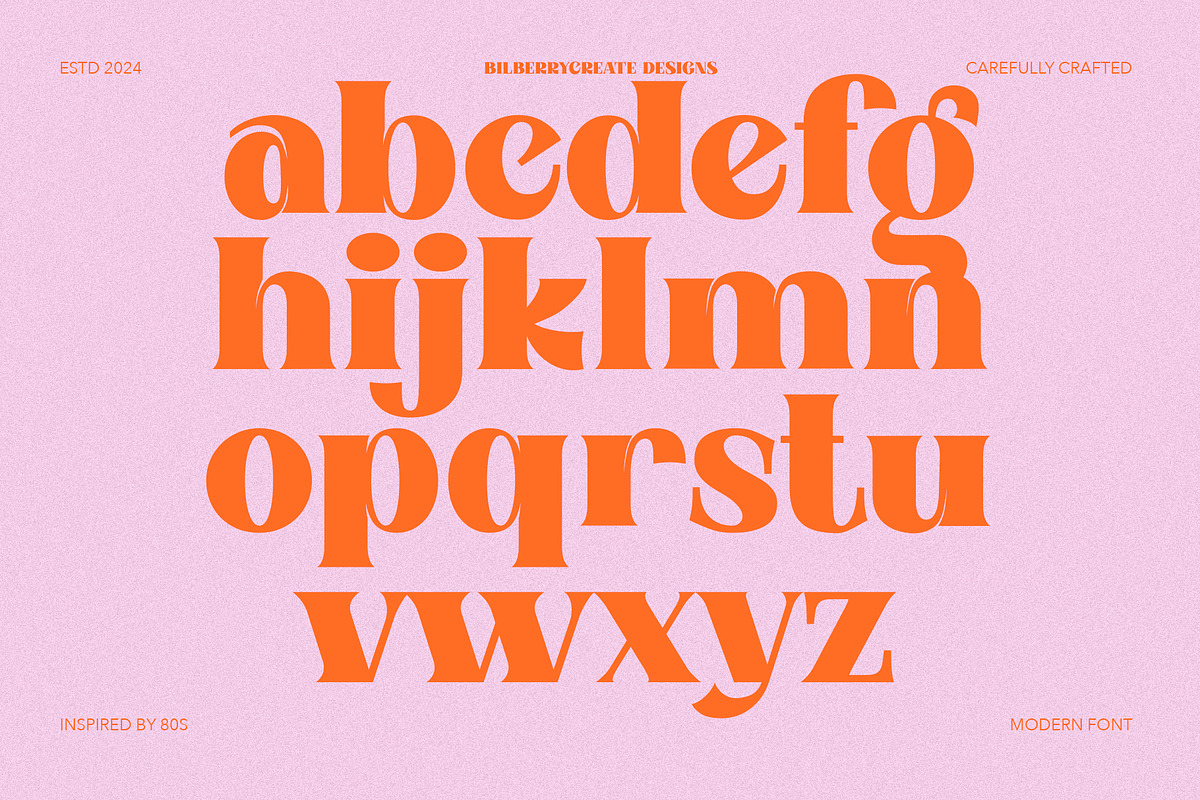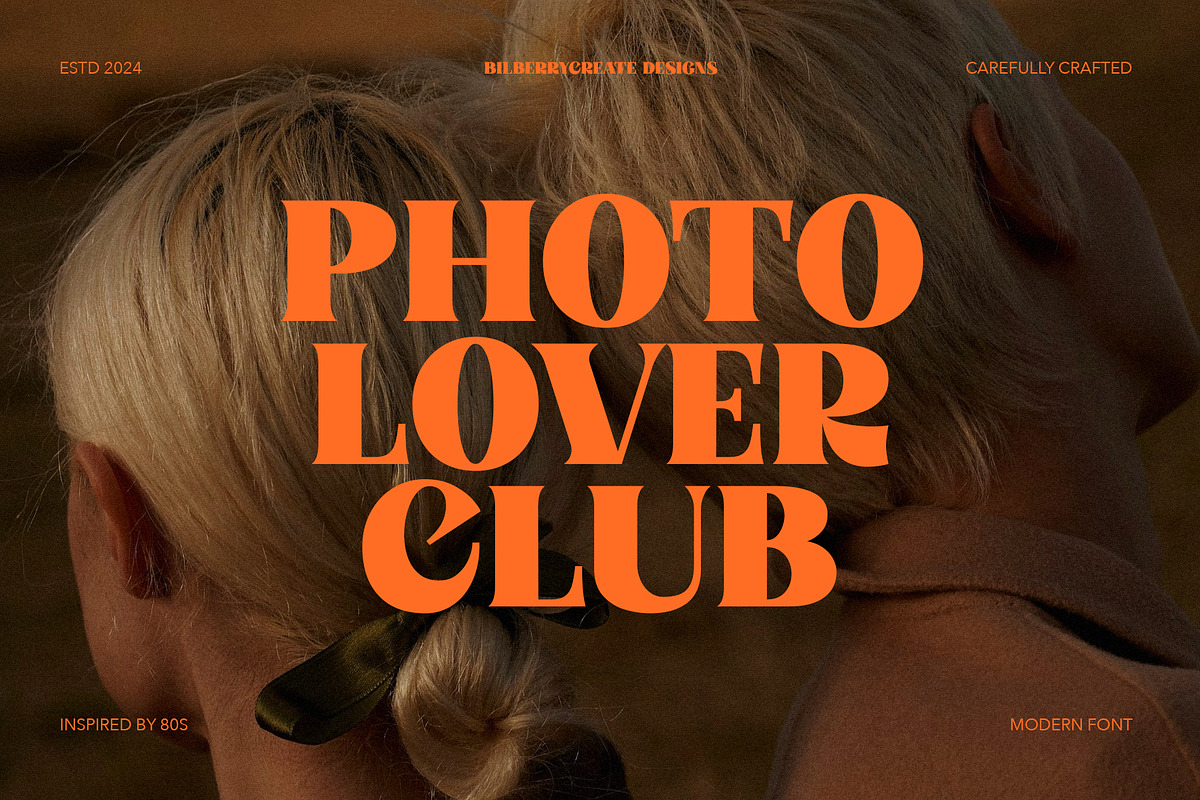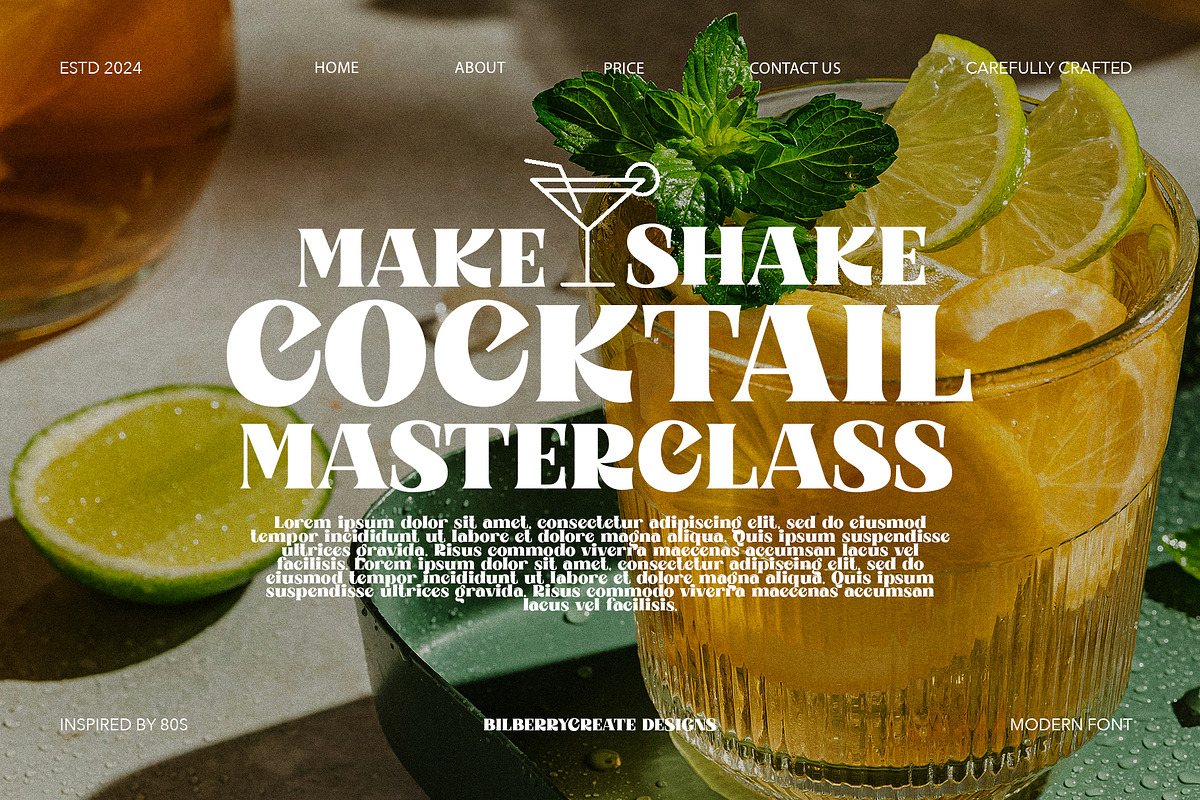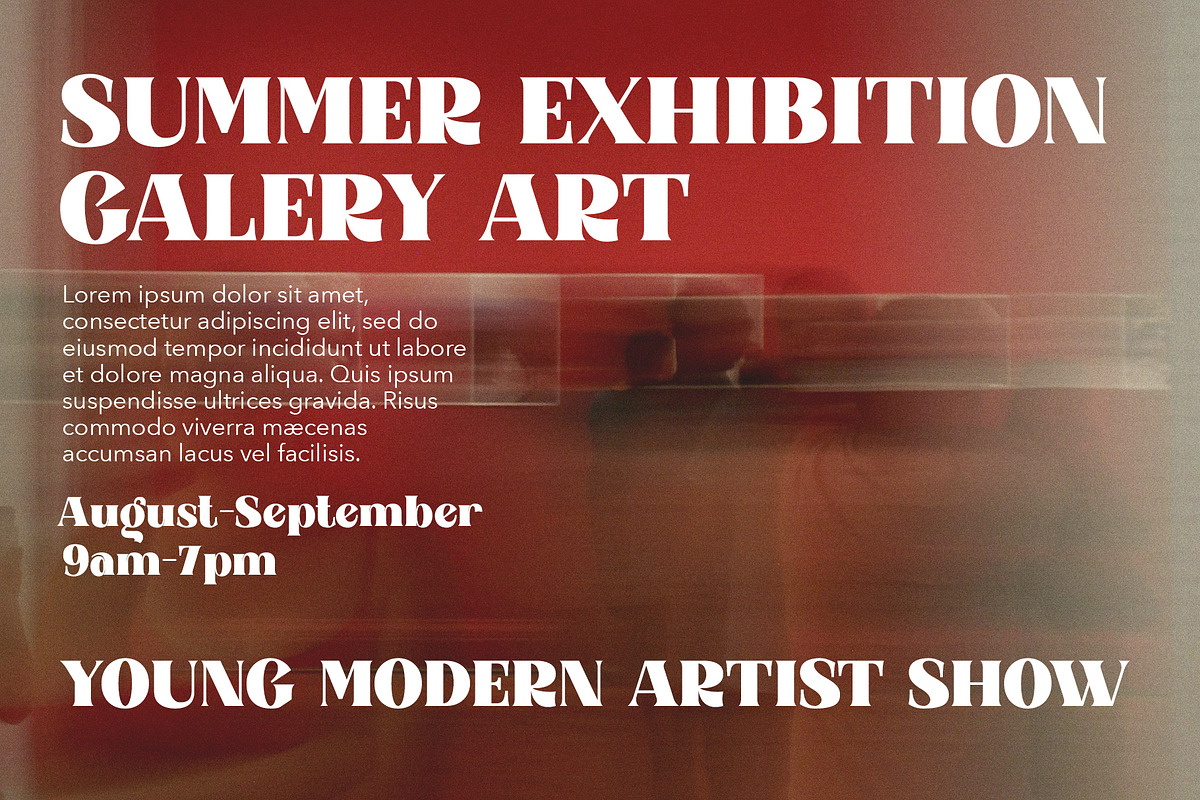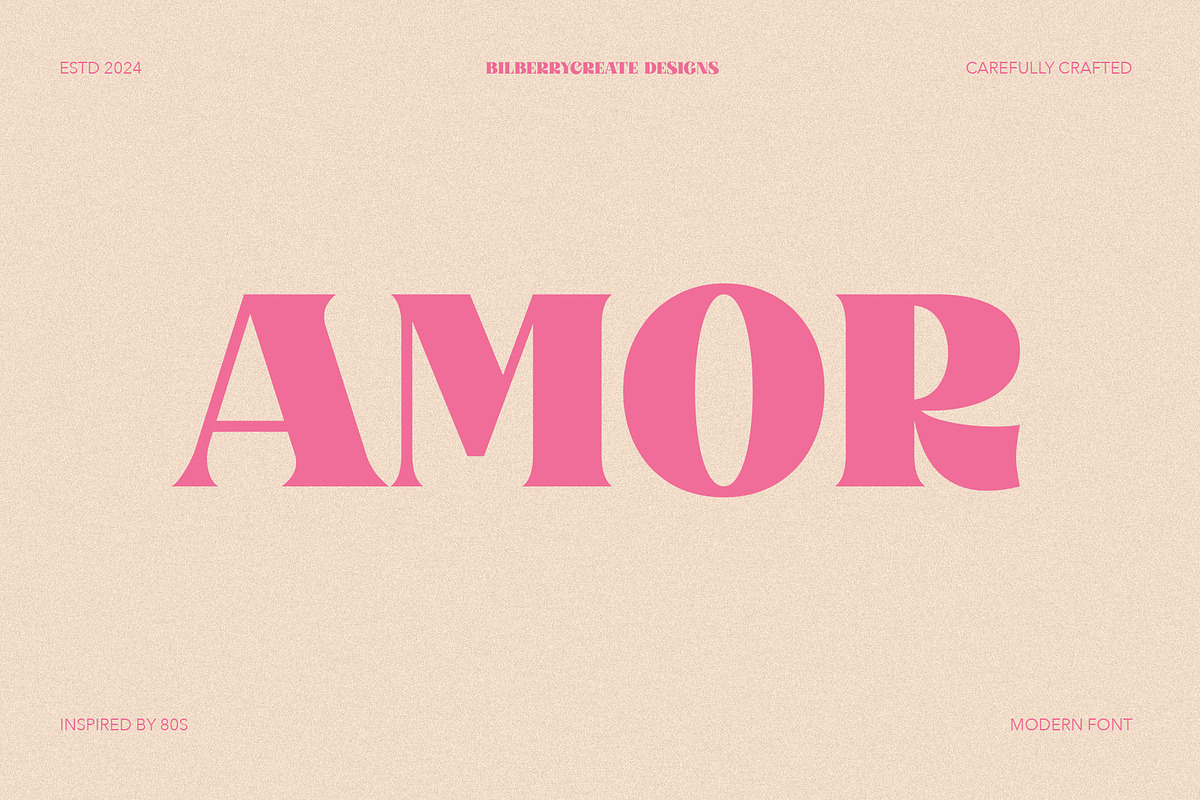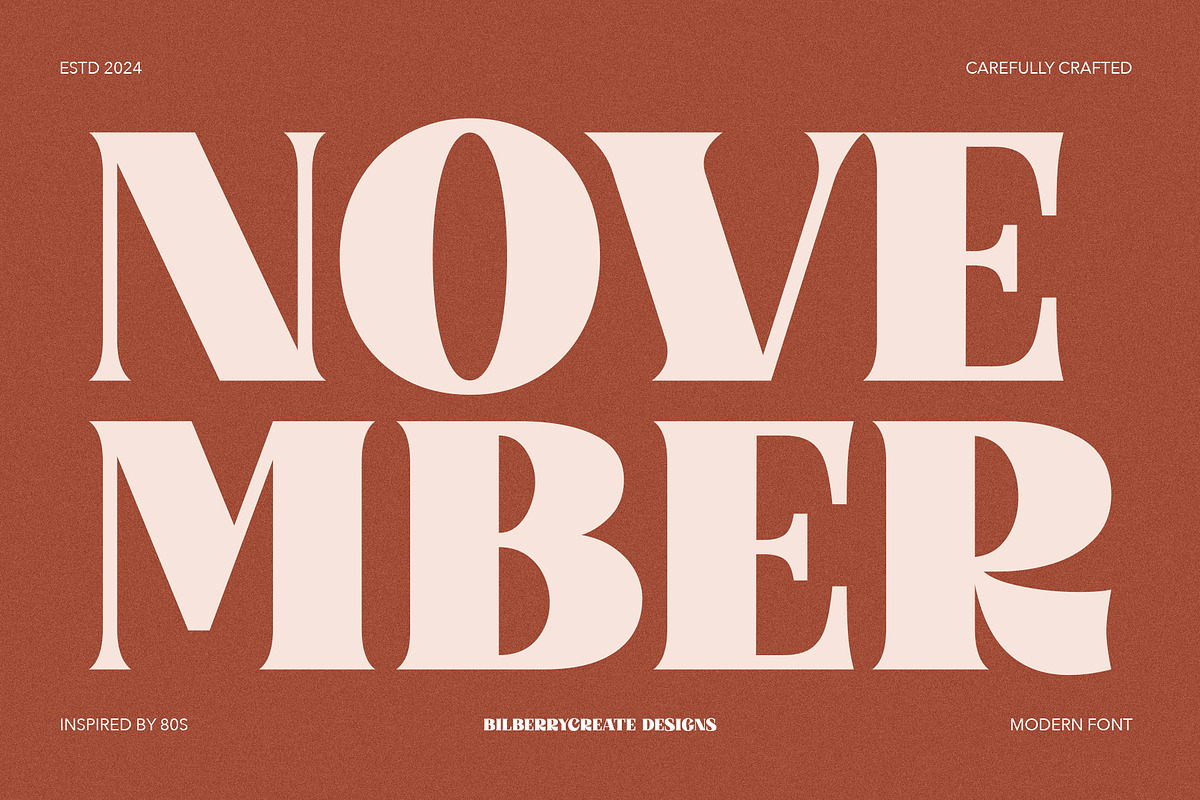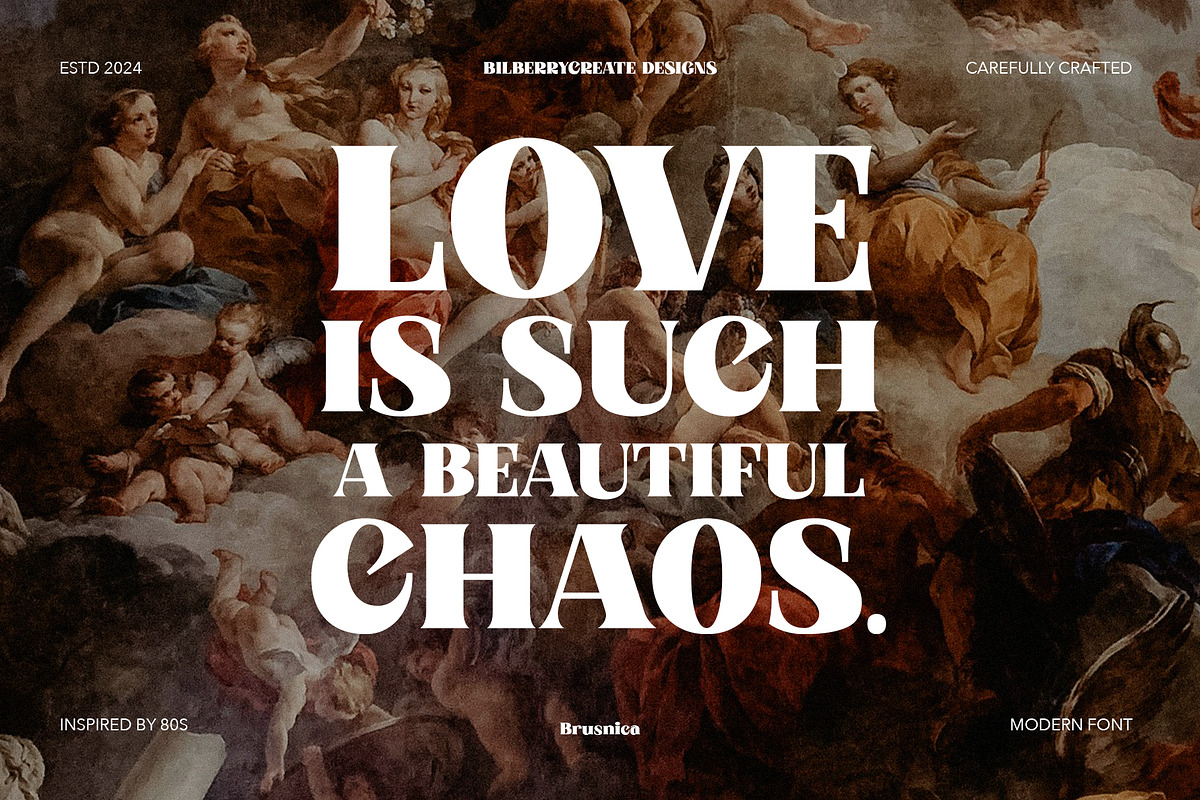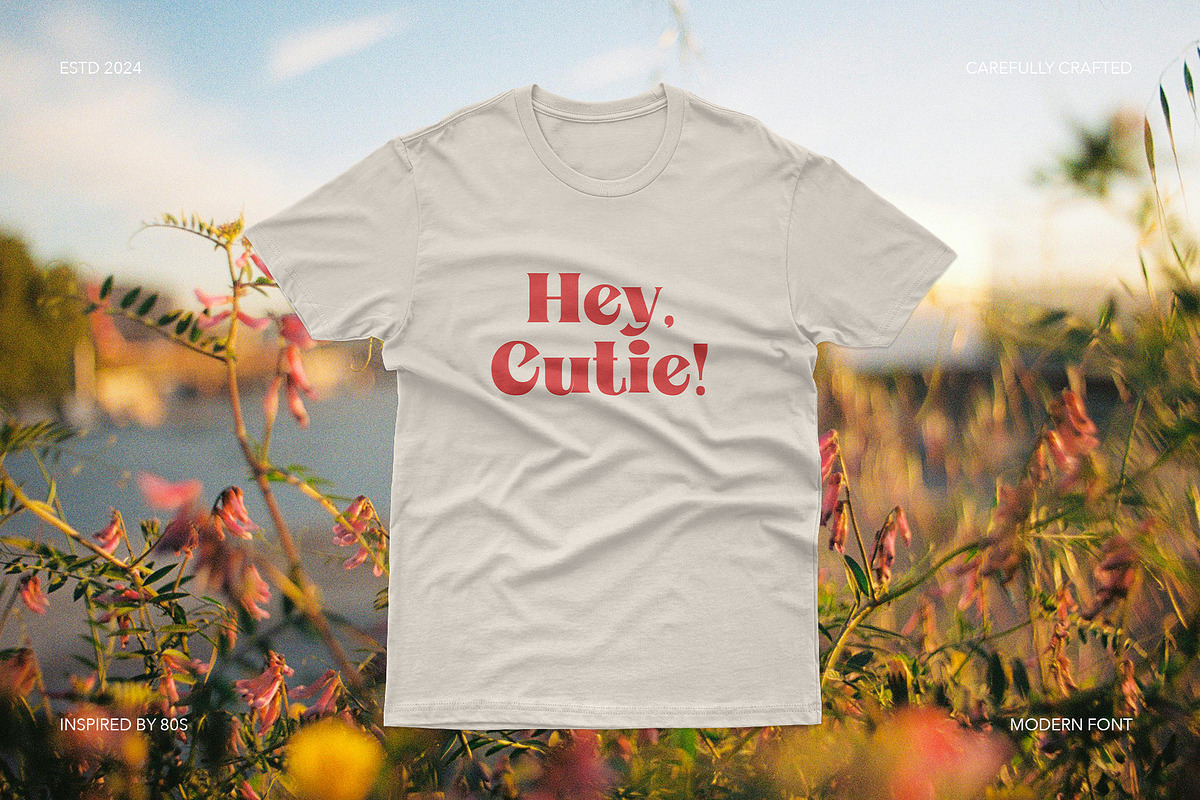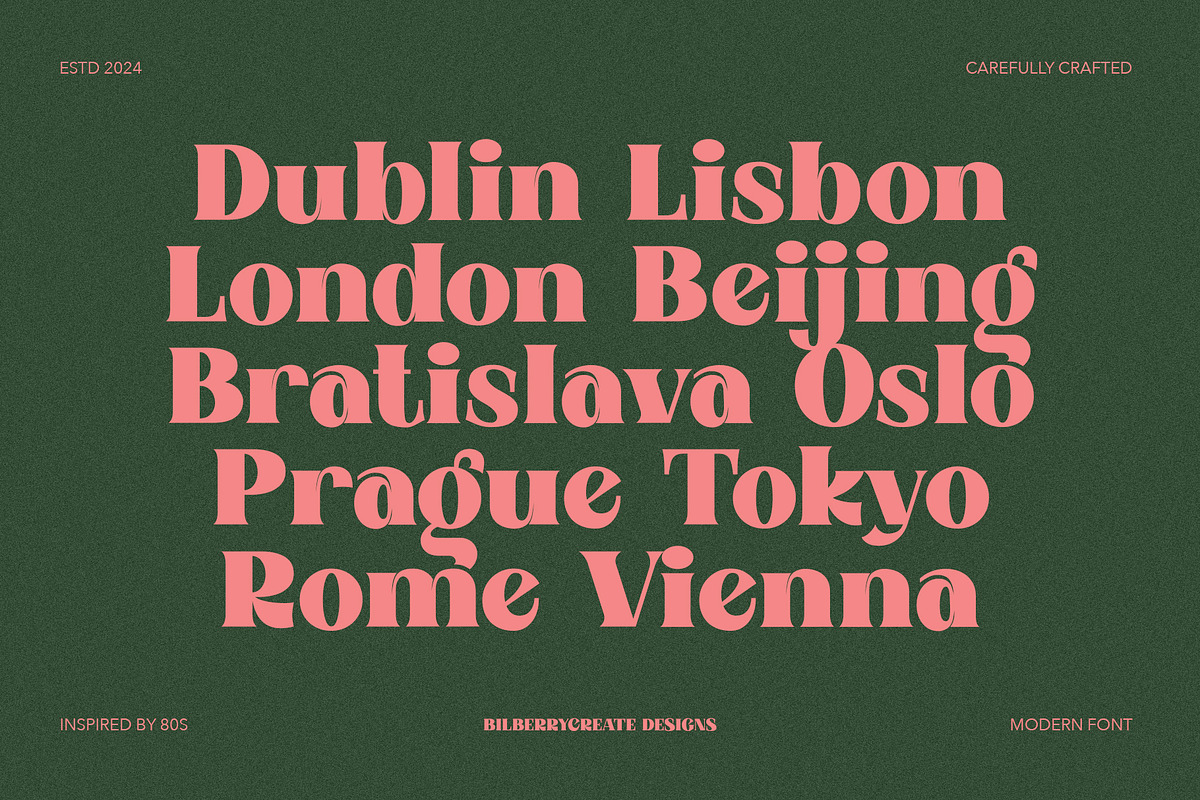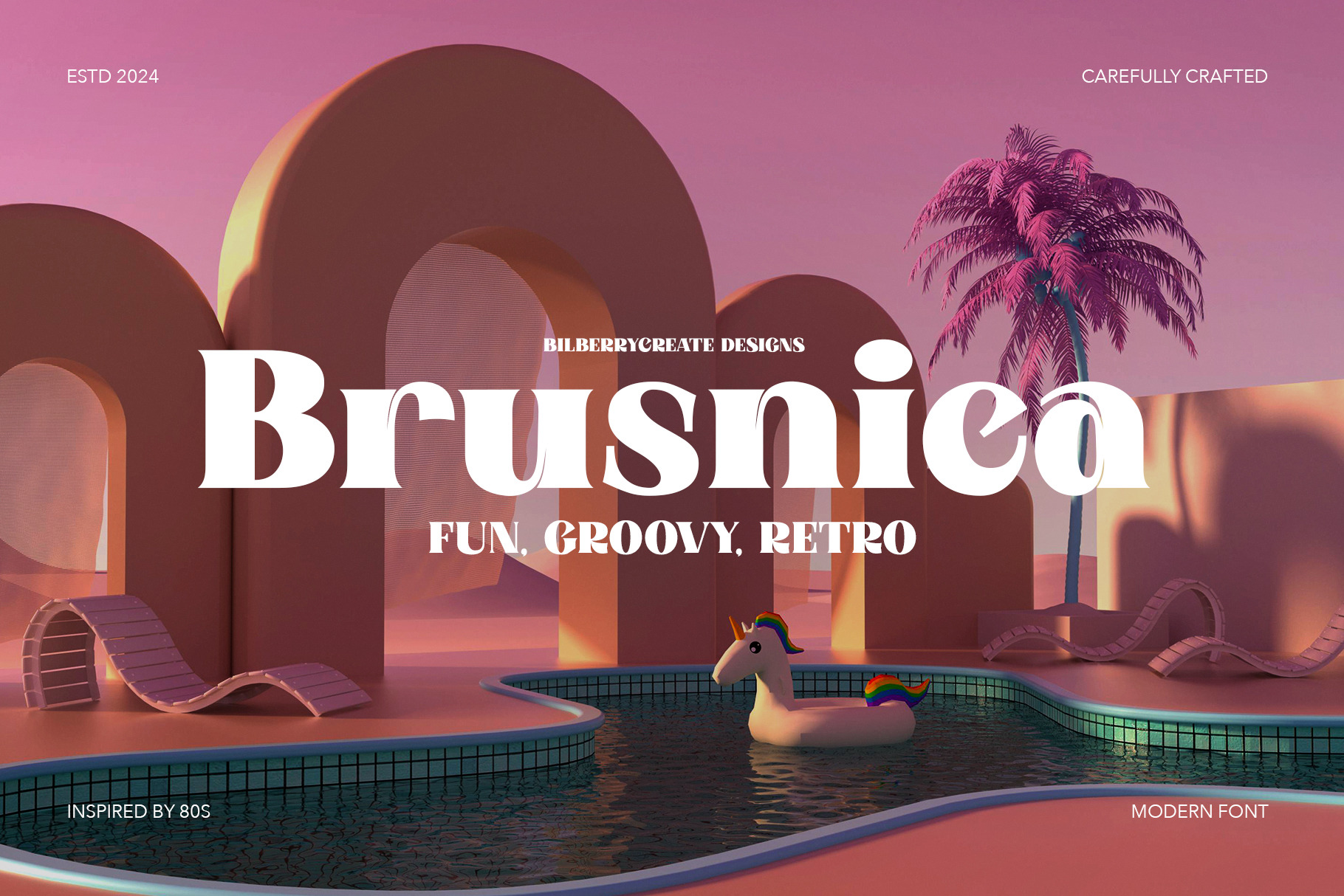
Brusnica - Retro Serif Font
Brusnica - Retro Serif Font!
Brusnica inspired by 80s. Groovy, Funky and Retro vibe! This product was created to help you make your digital images even more beautiful and unique.